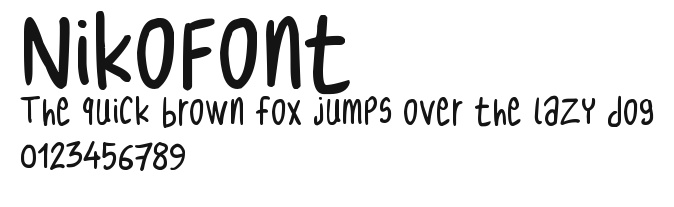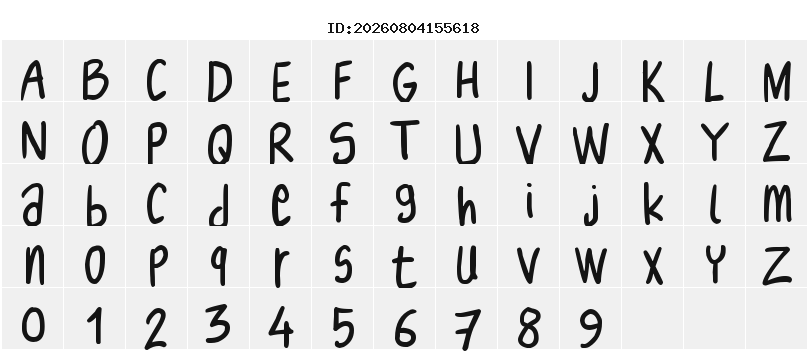
NikoFont Preview
• Font Name: NikoFont
• Full Font Name: NikoFont
About NikoFont.ttf
NikoFont.ttf is a modern, elegant sans-serif font designed for ultimate readability and visual harmony. Perfect for branding, headlines, web design, and print materials.